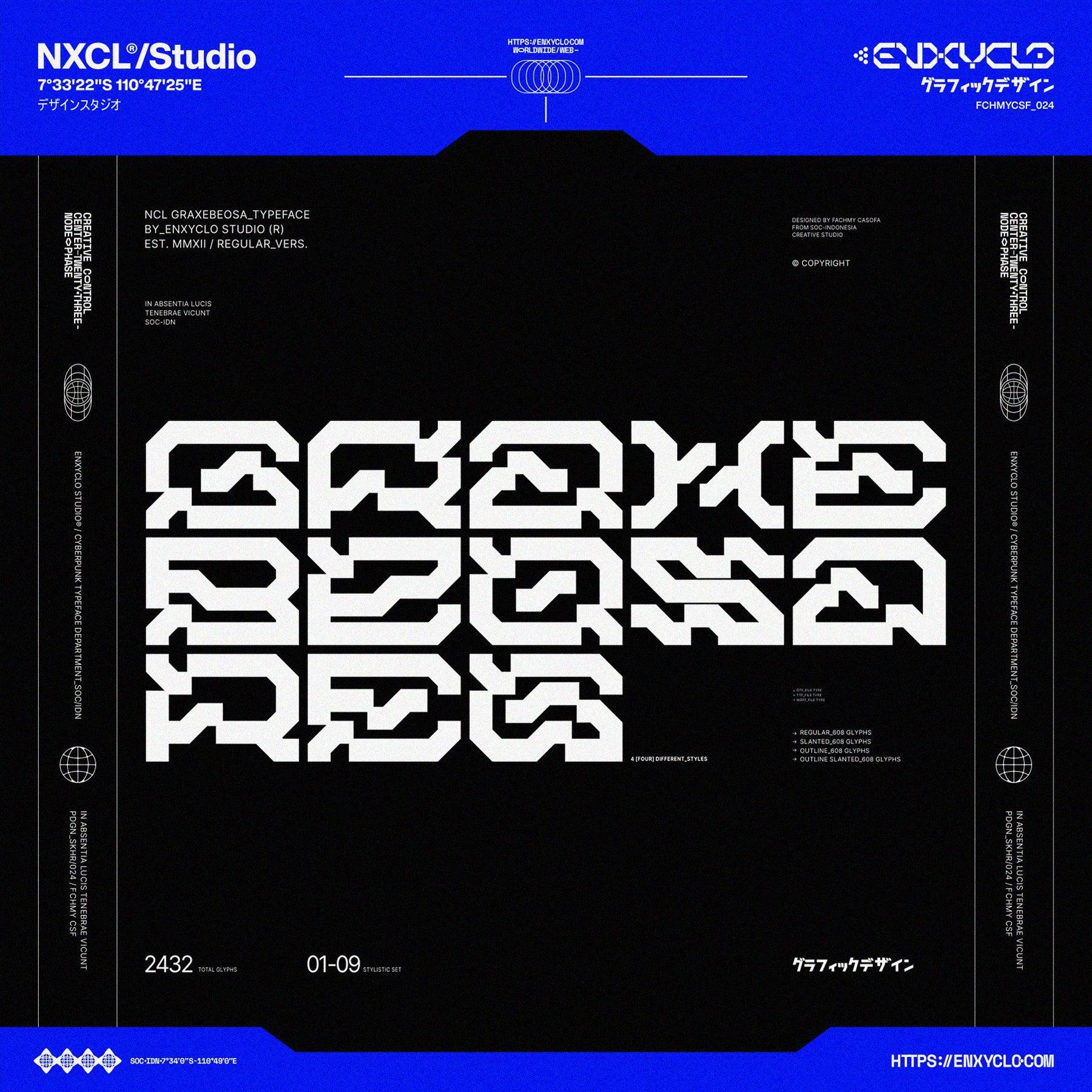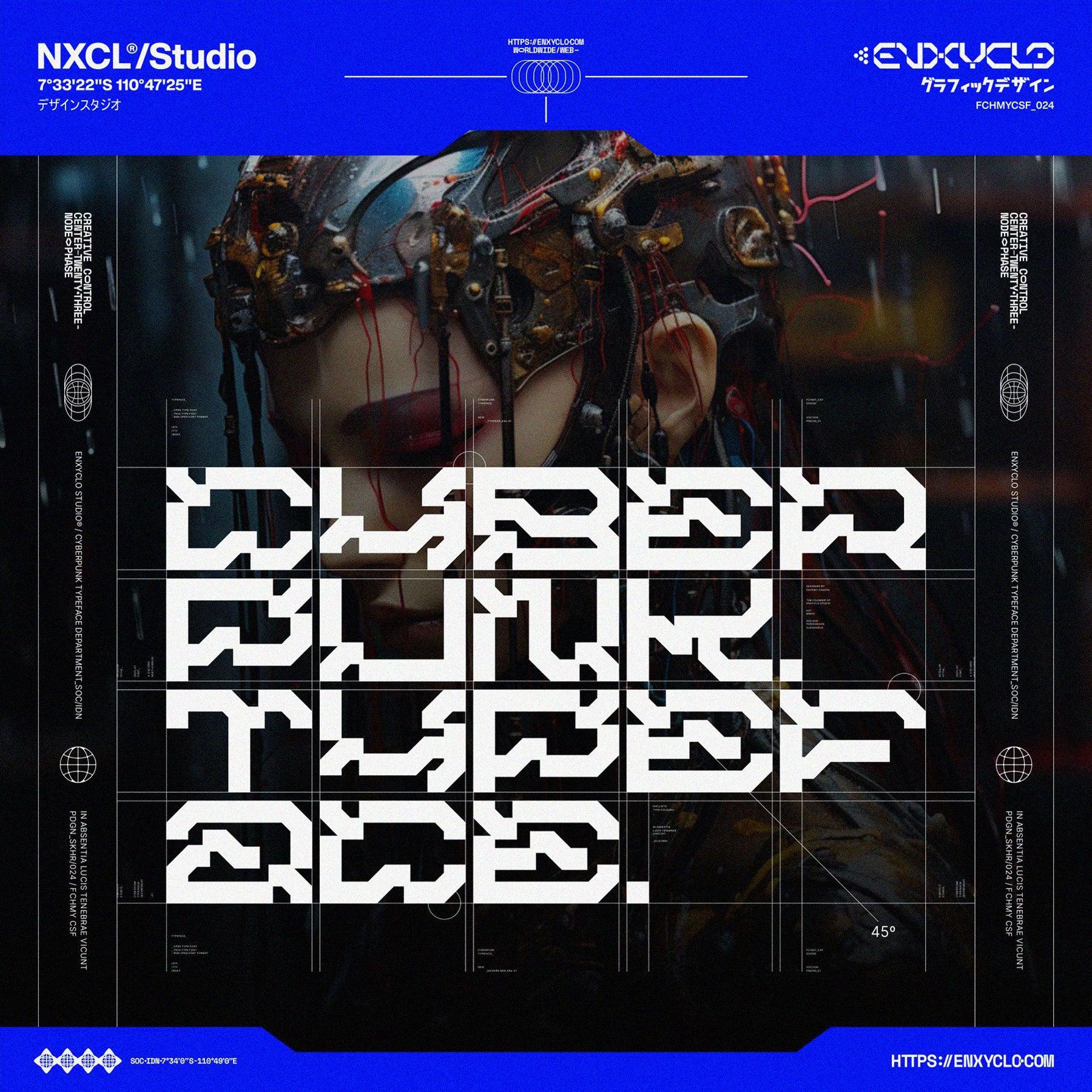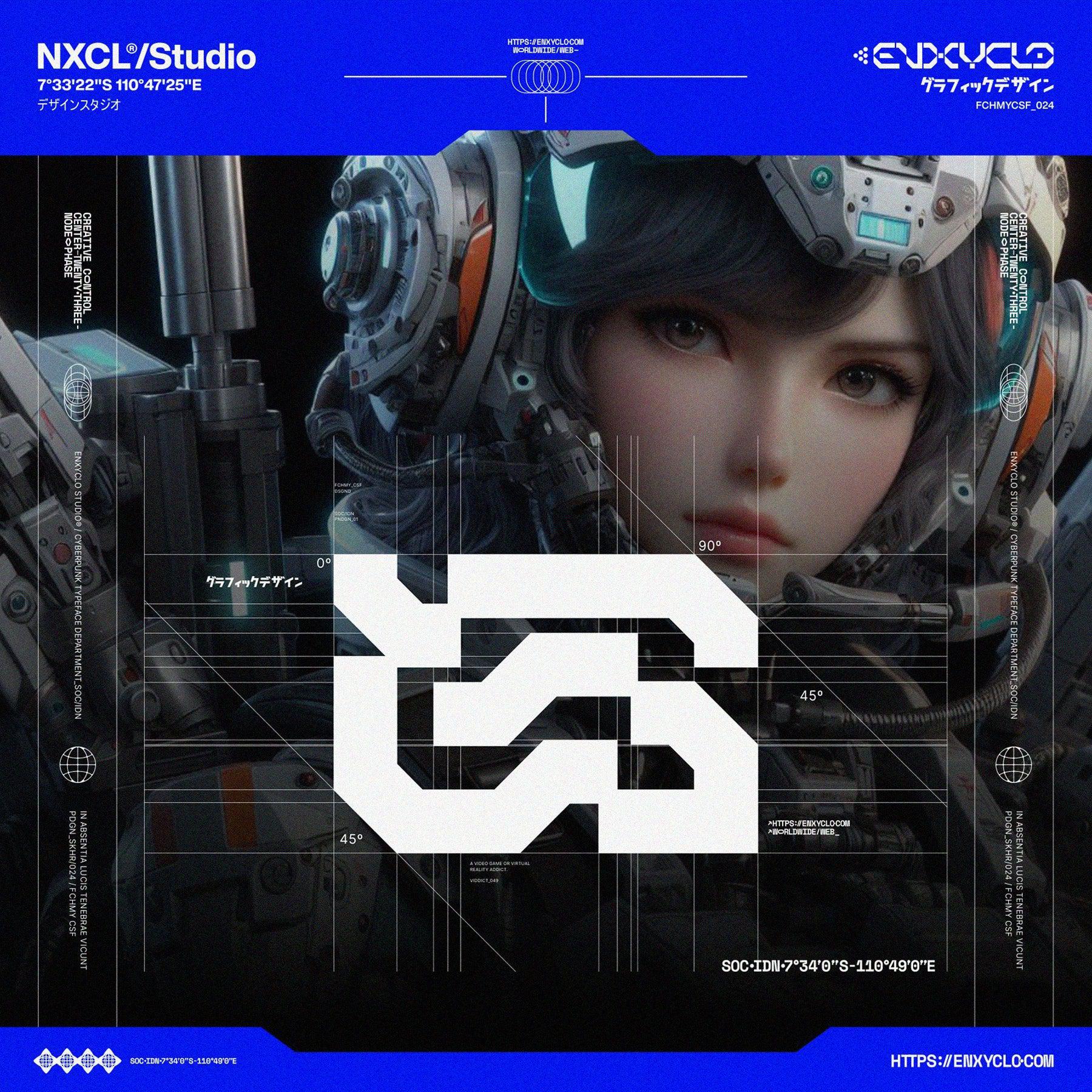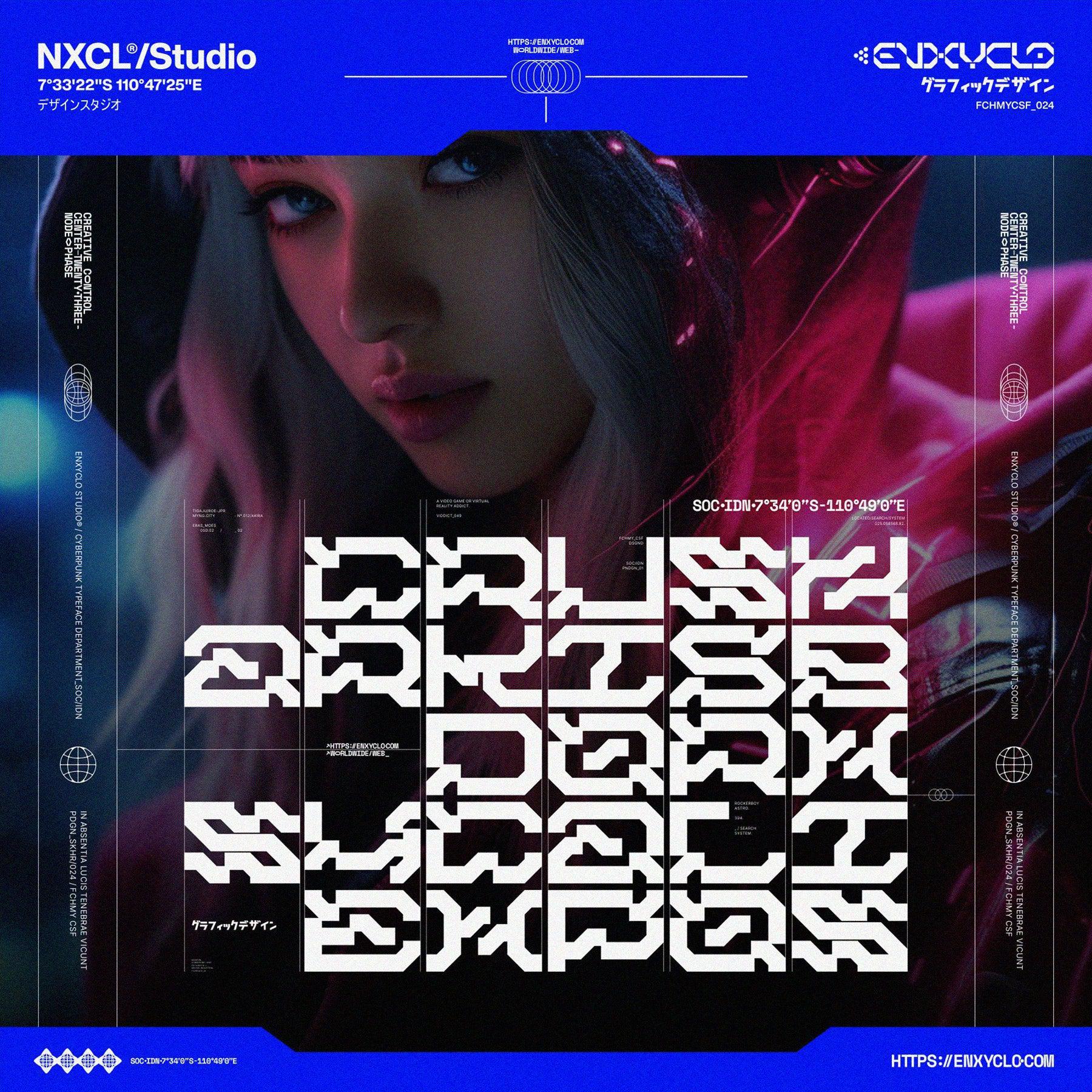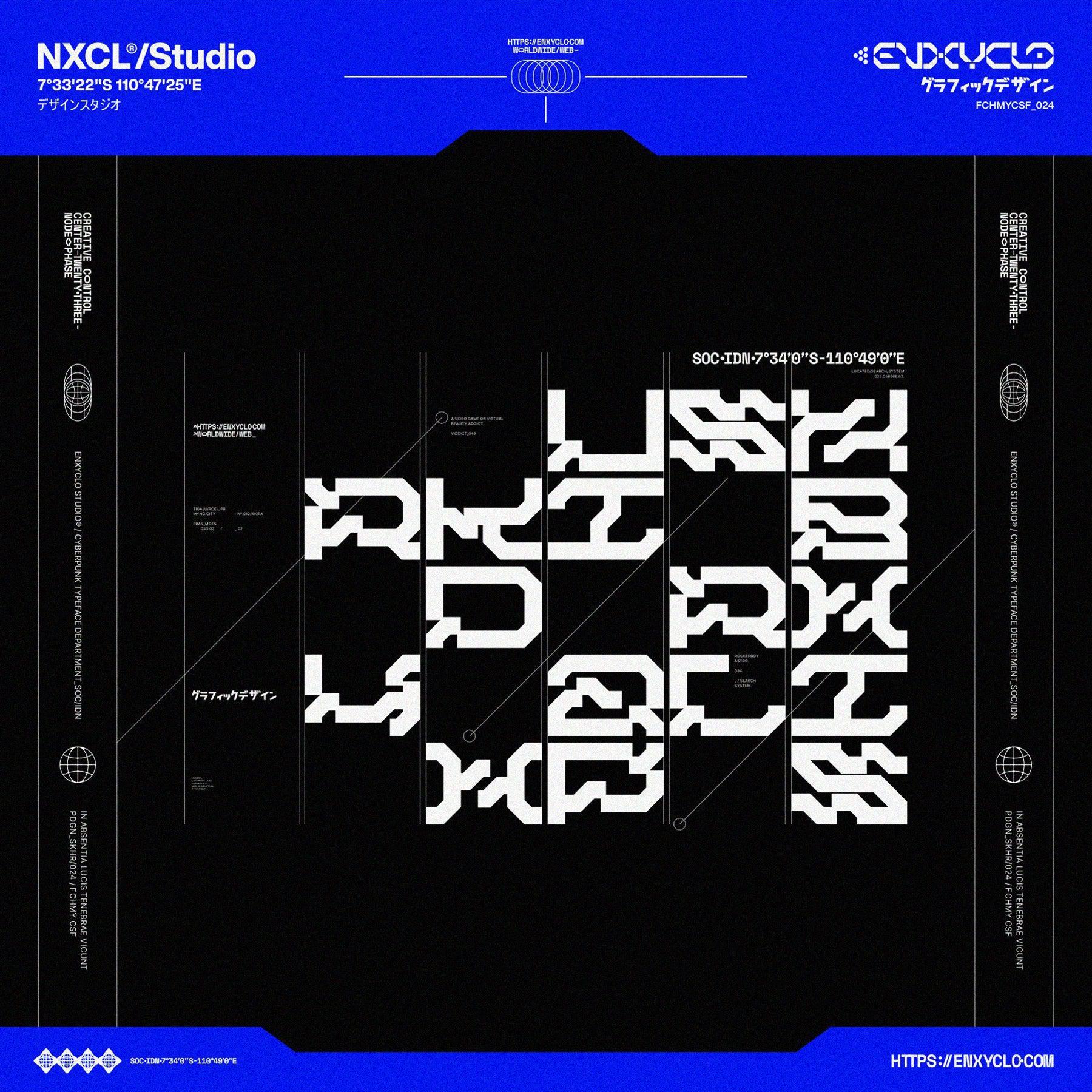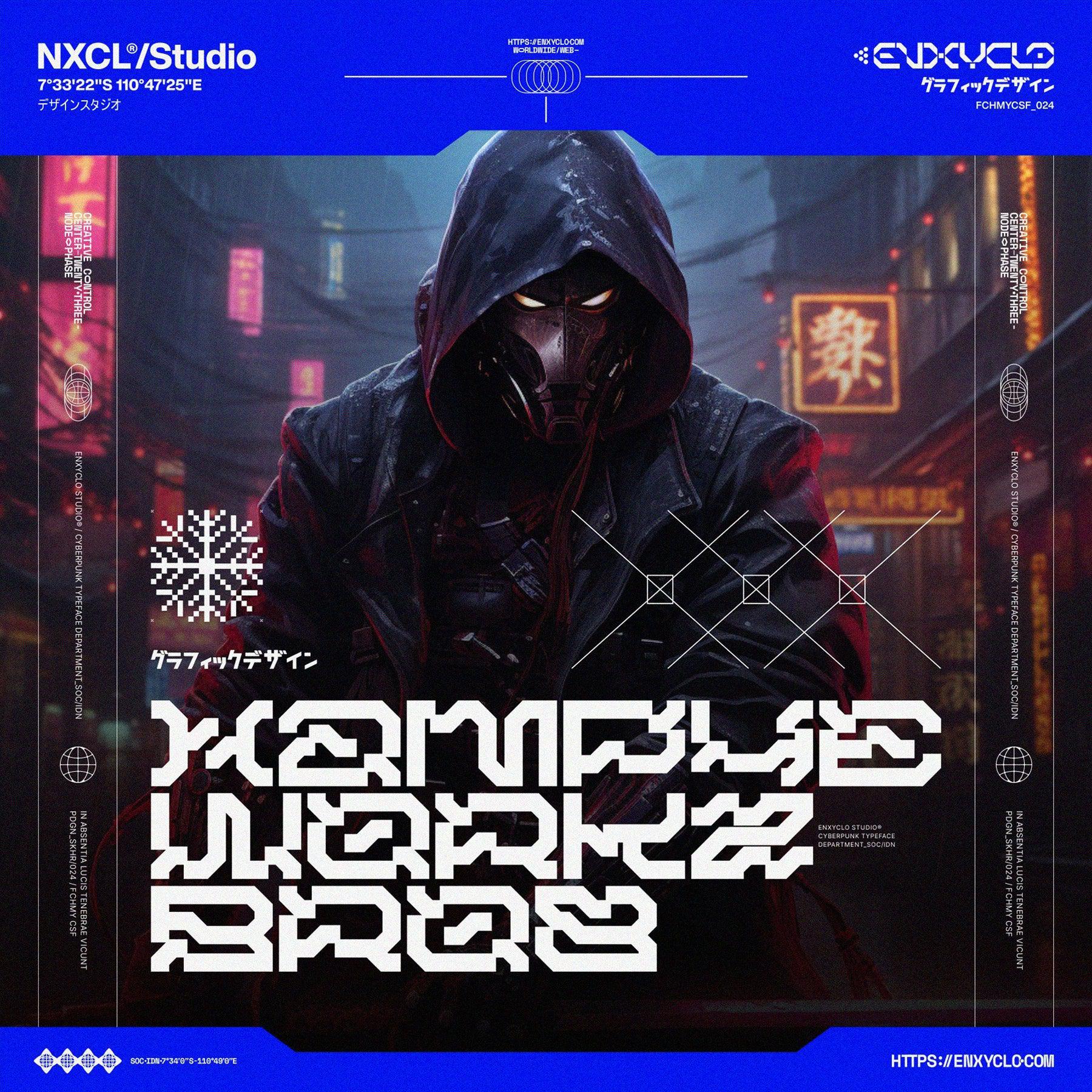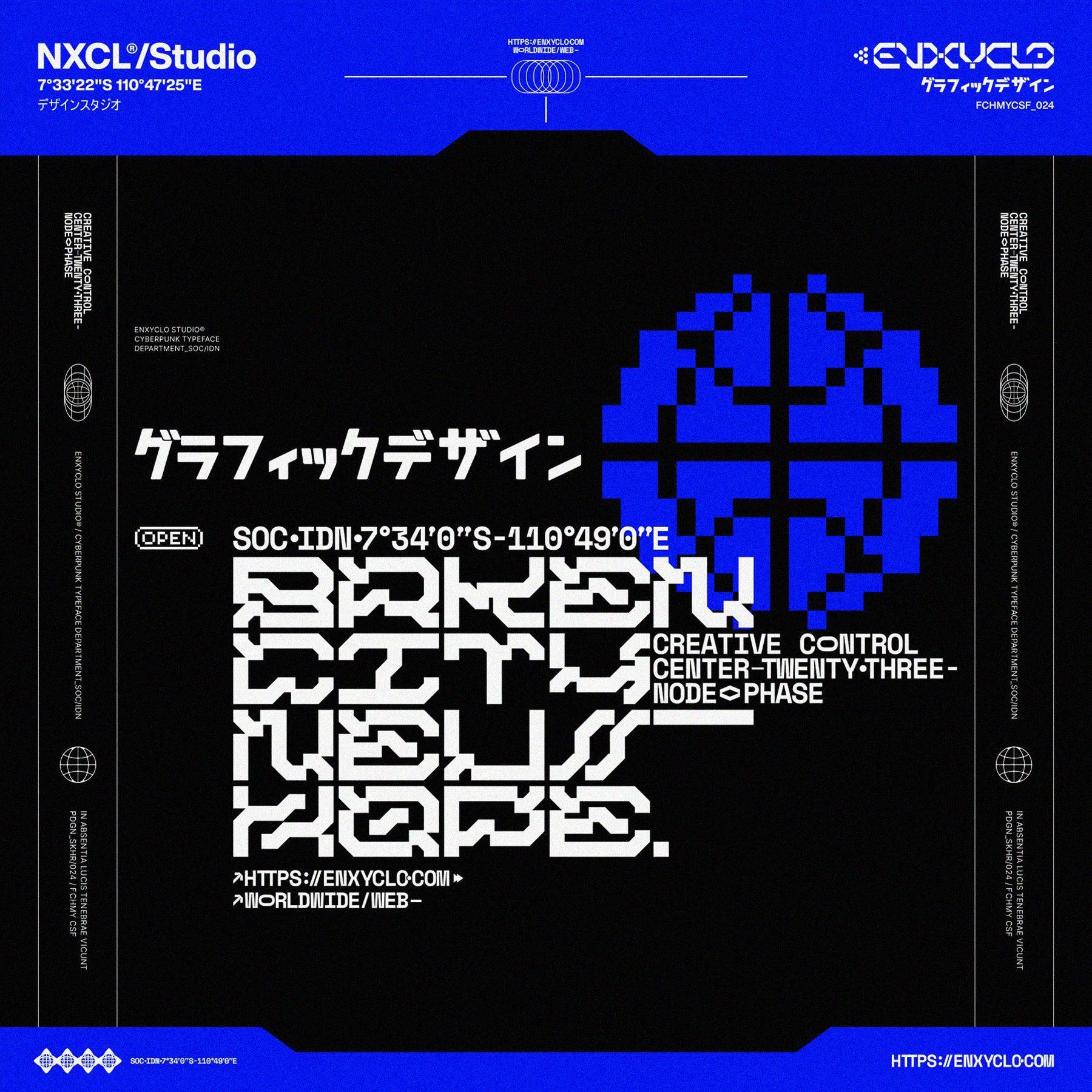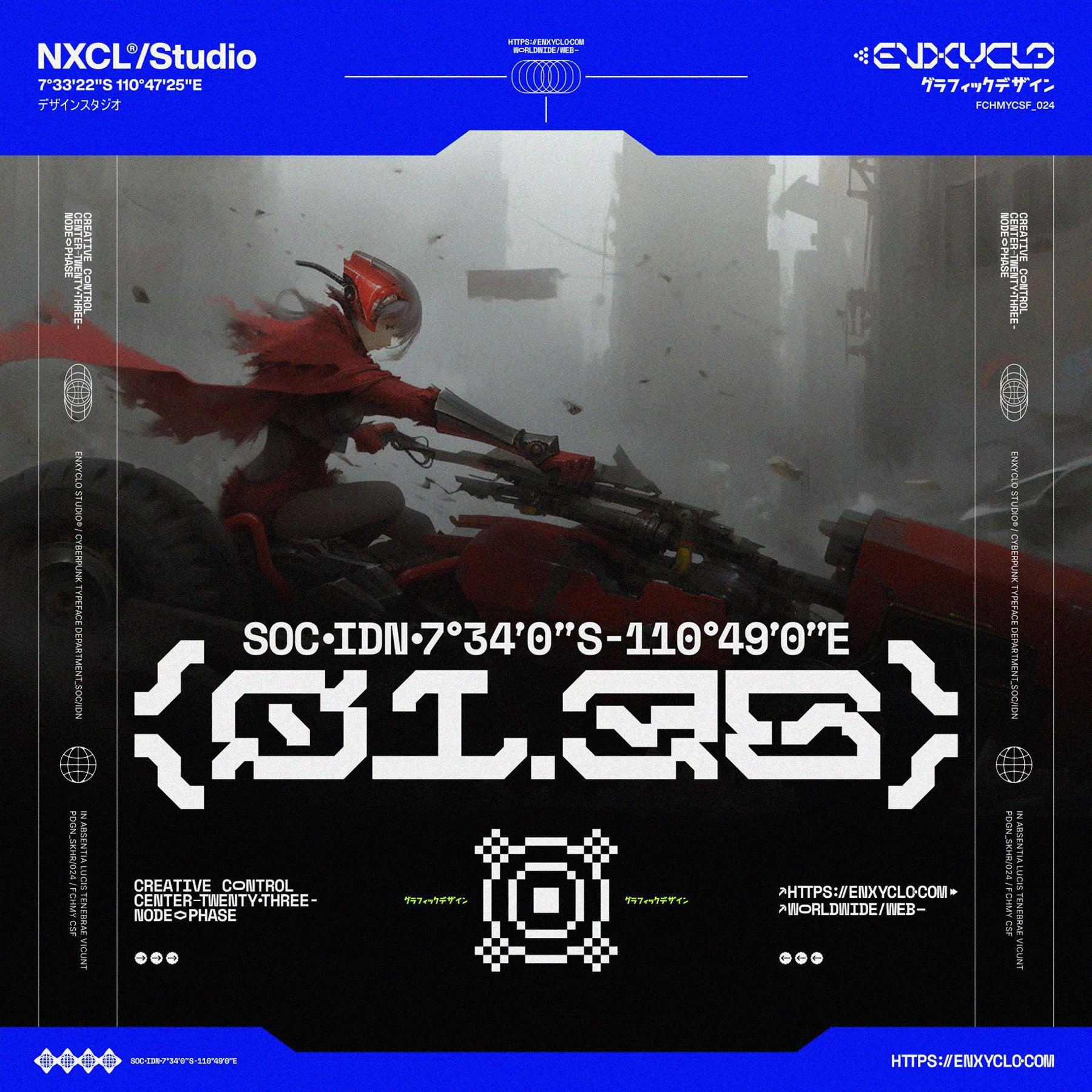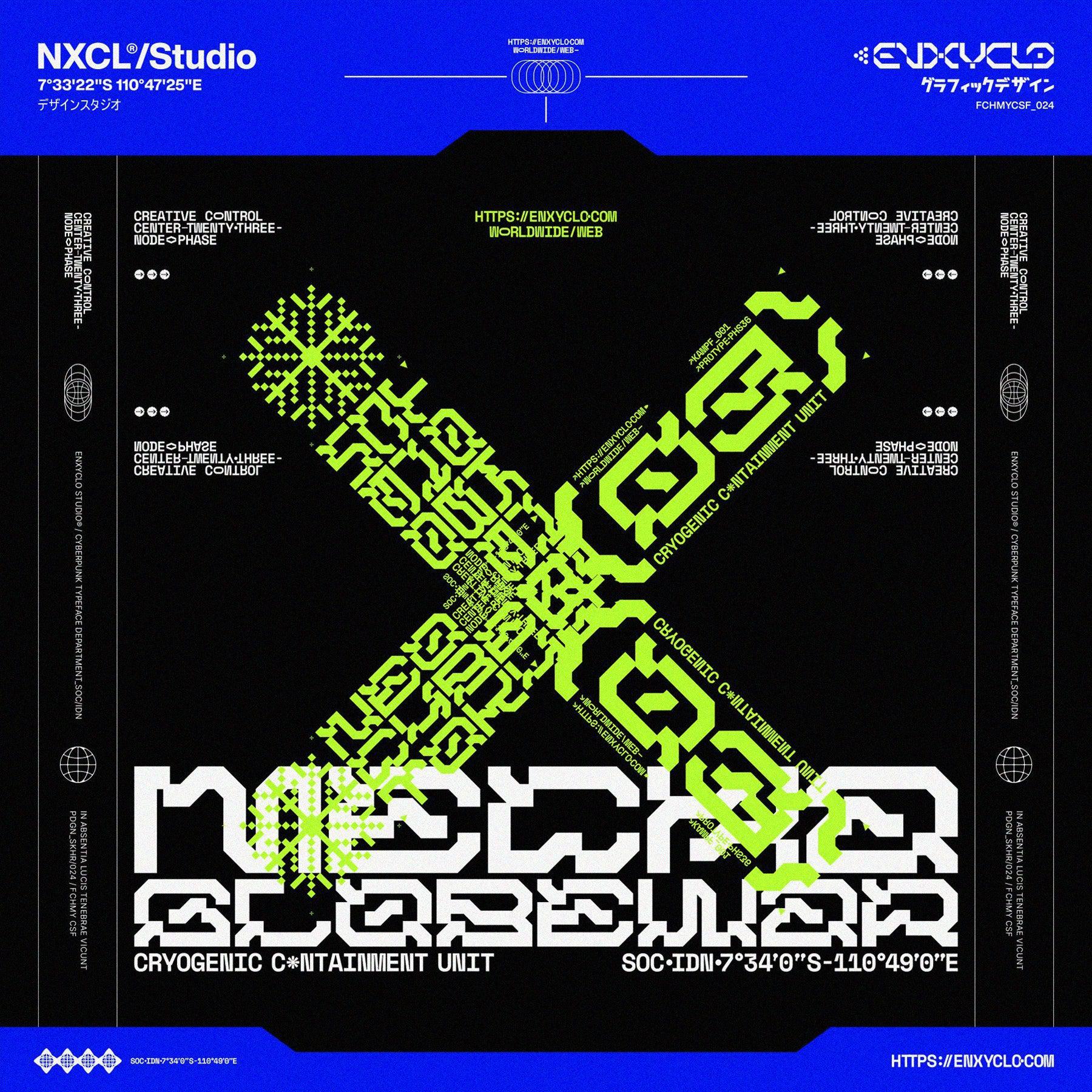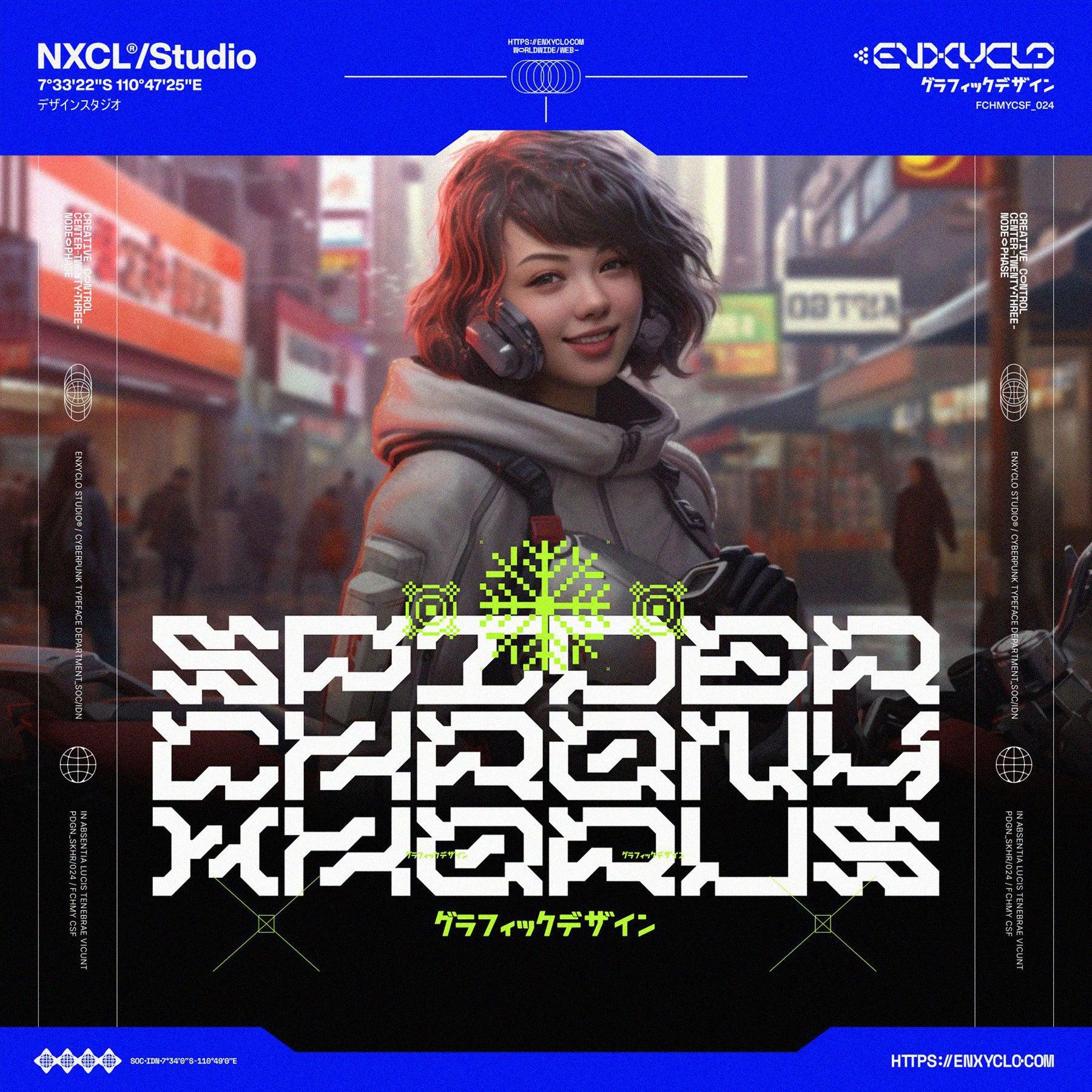
GRAXE BEOSA - Regular
The NCL GRAXEBEOSA is a modern cyberpunk futuristic techno mecha font. It features True Type Font (TTF), Open Type Font (OTF), and Web Open Font Format (WOFF1 & WOFF2), with four styles: Regular, Slanted, Outline, and Outline Slanted. The font includes 608 glyphs for each style, totaling 2432 glyphs, and supports uppercase, lowercase, numerals, punctuation, symbols, and multilingual use.
Ideal for modern cyberpunk and futuristic design projects. Perfect for websites, posters, logos, and album covers, ensuring a striking and innovative visual impact.